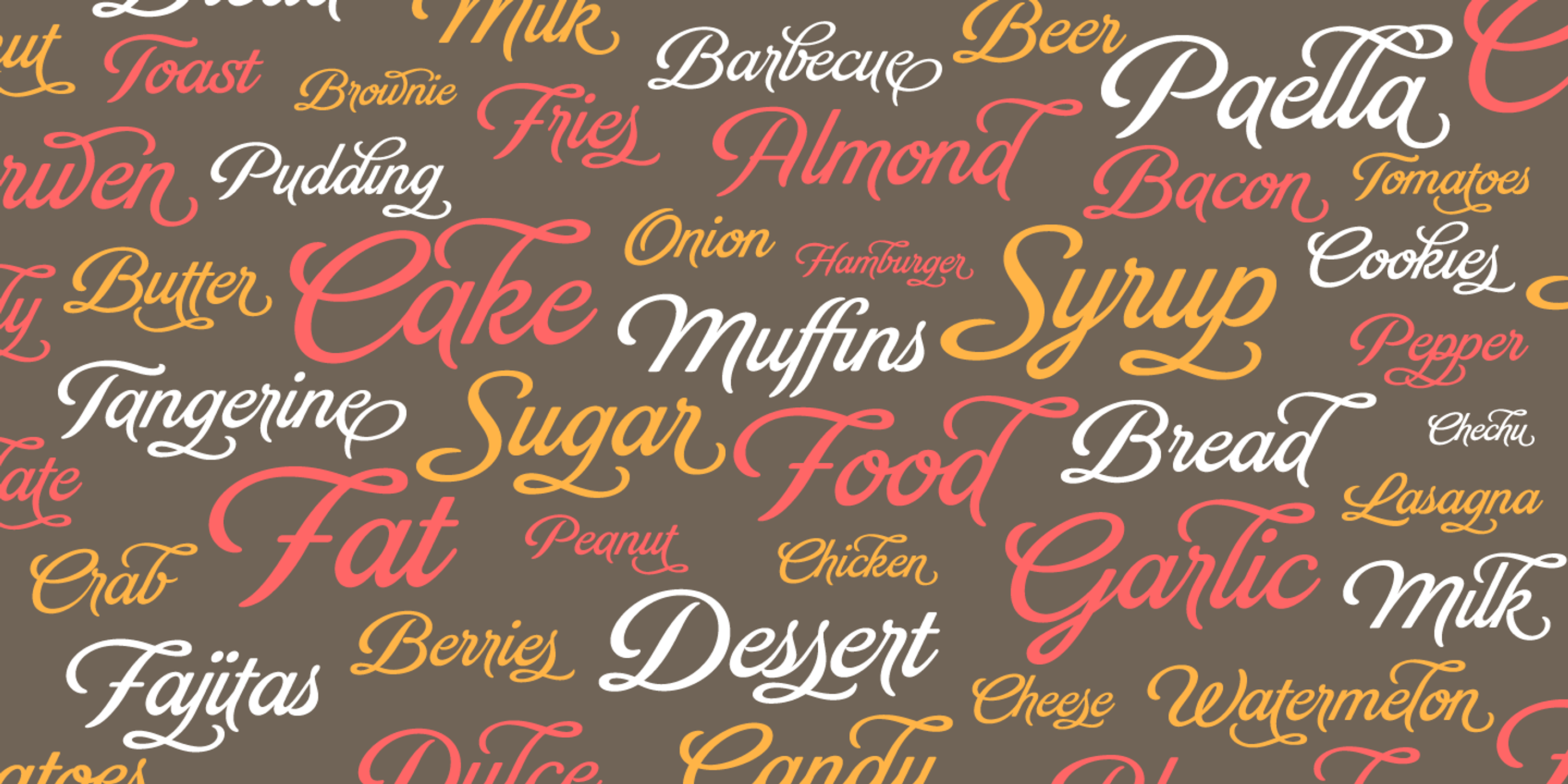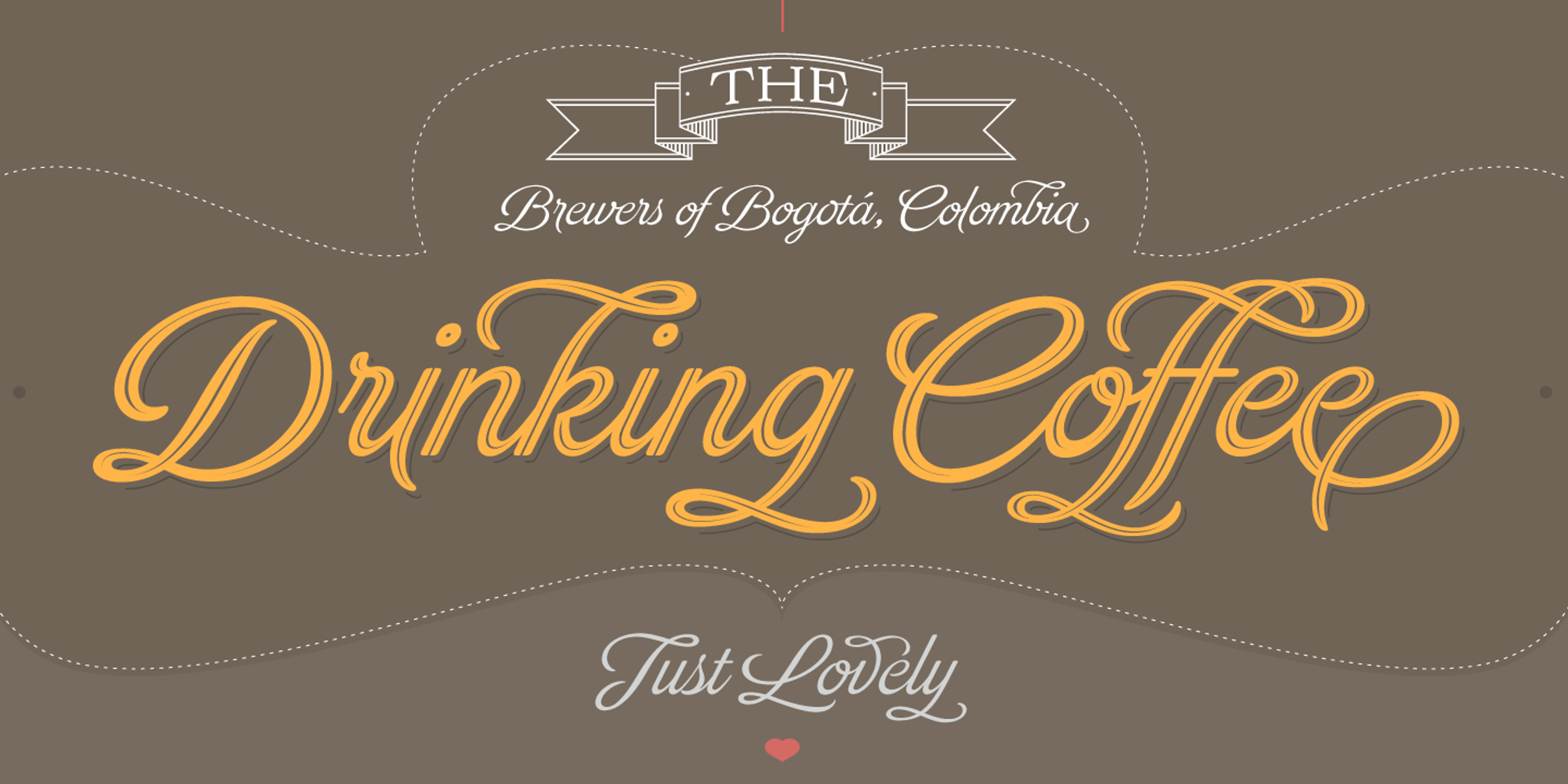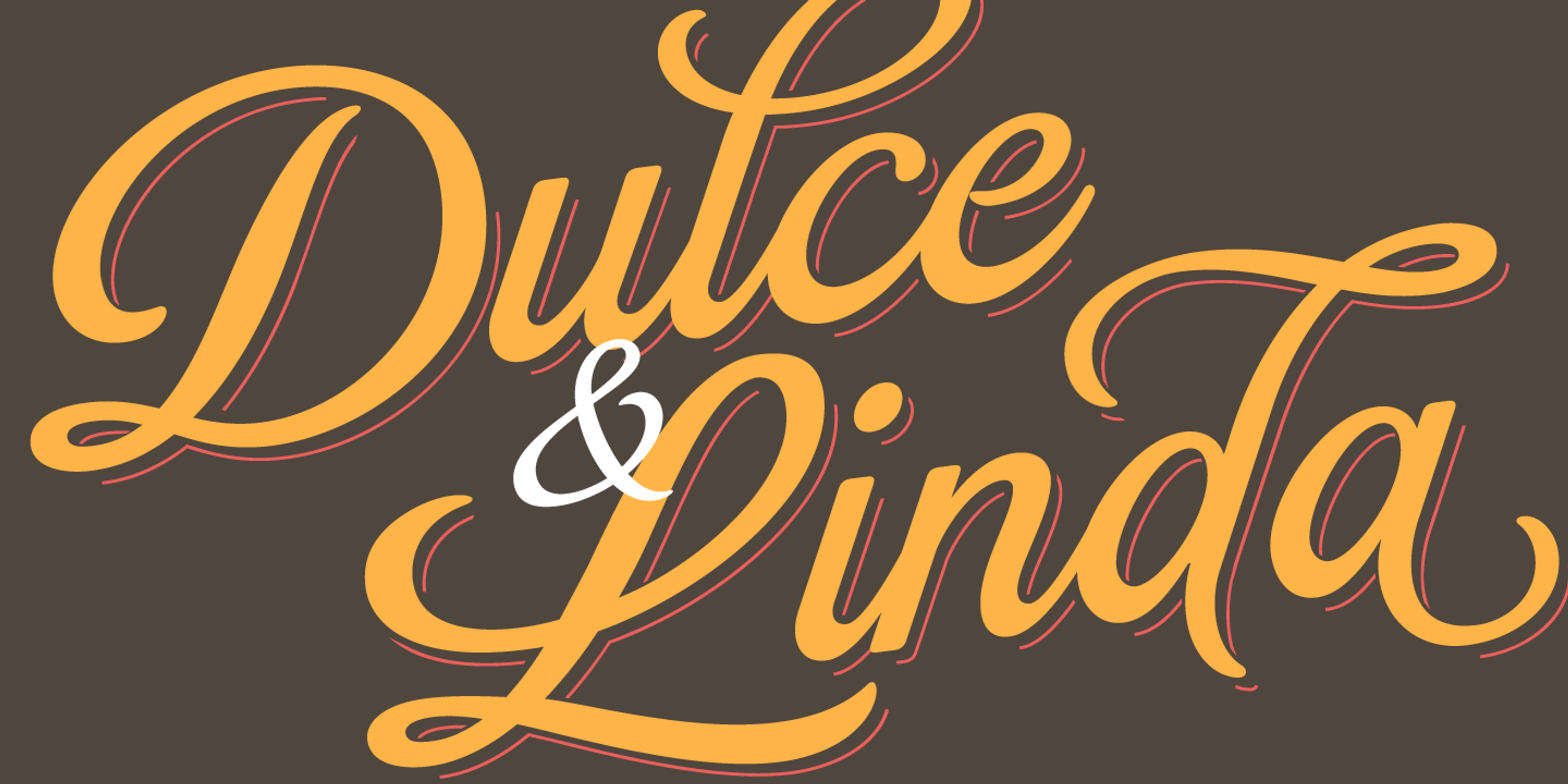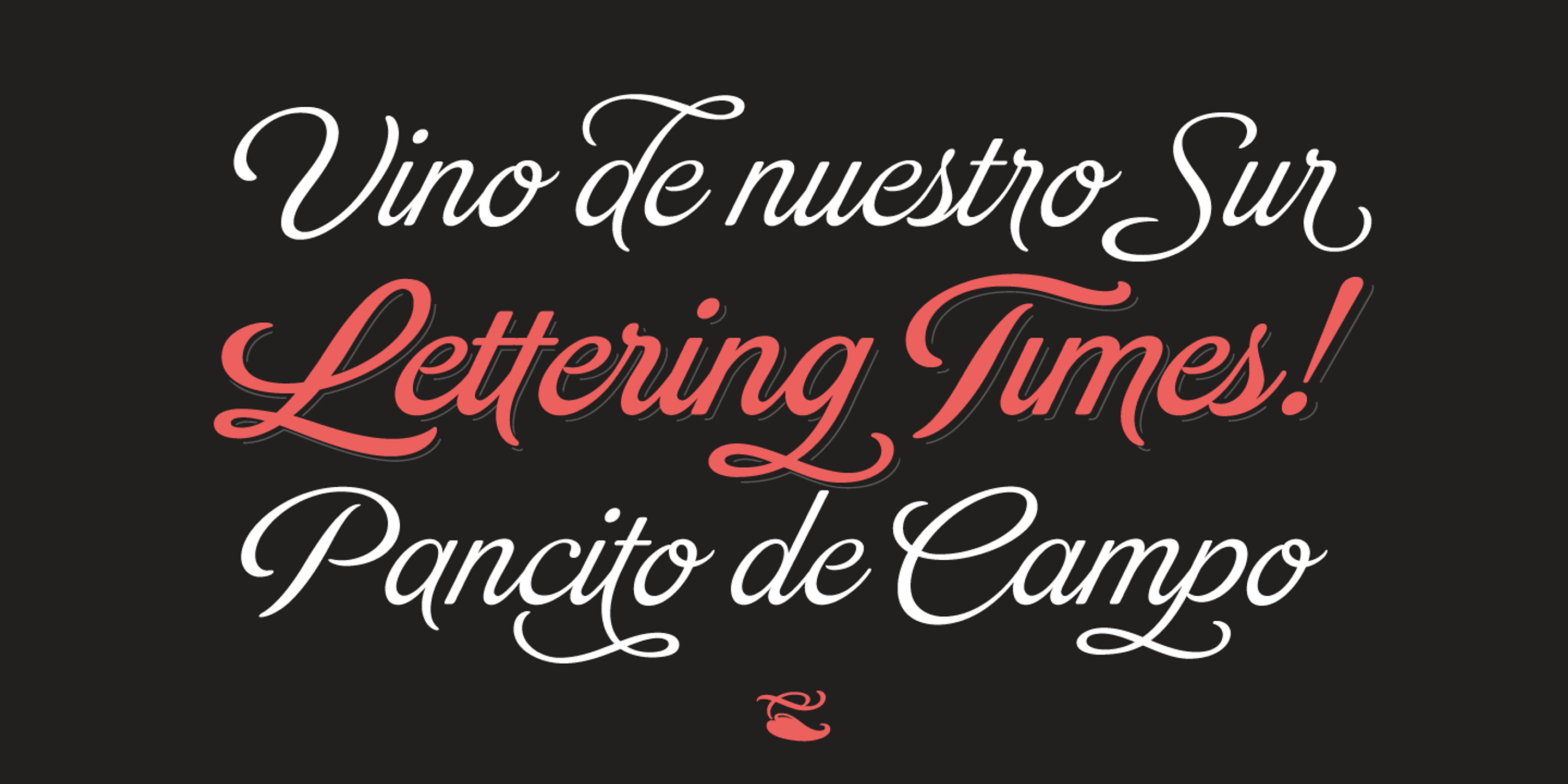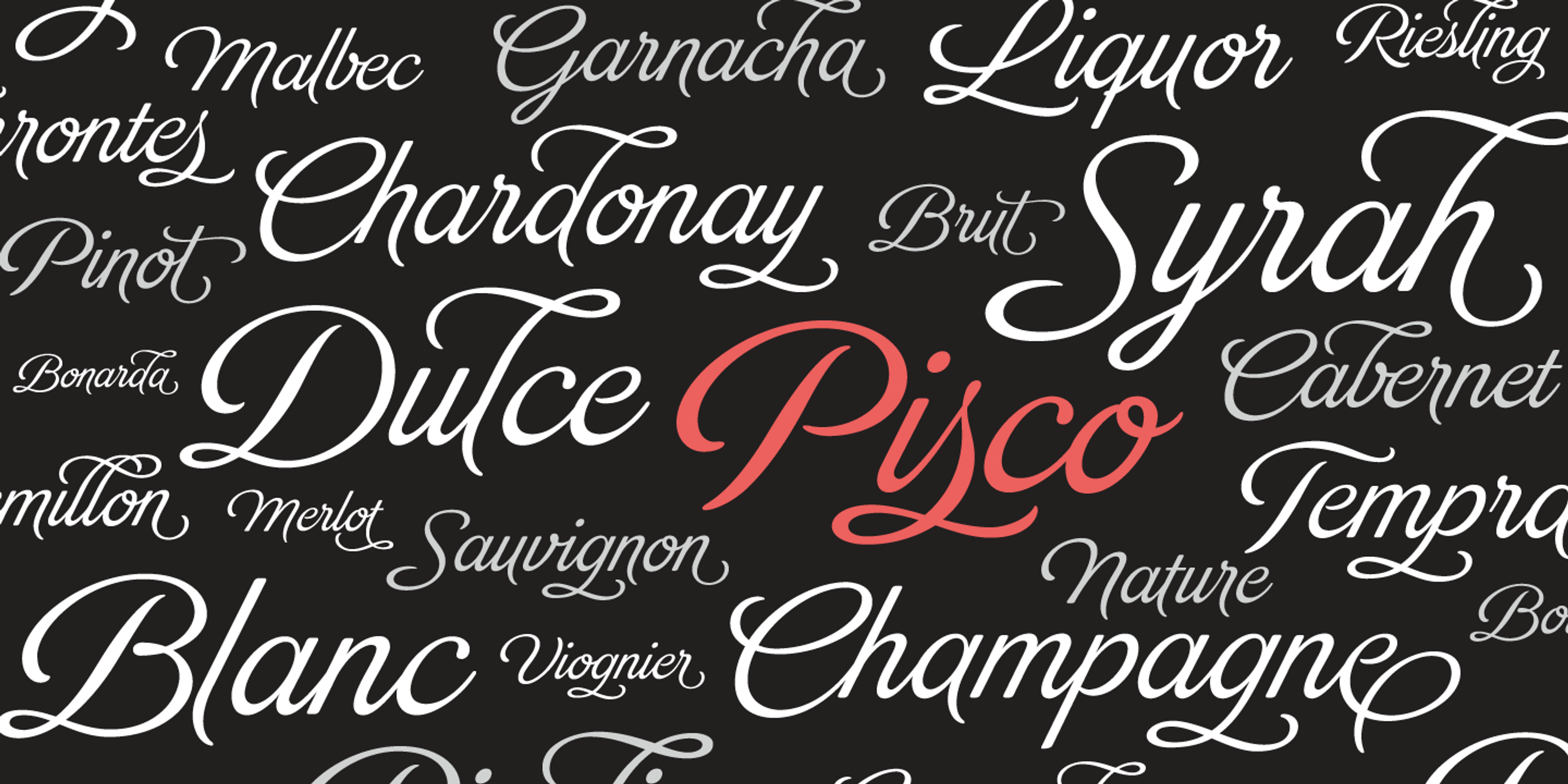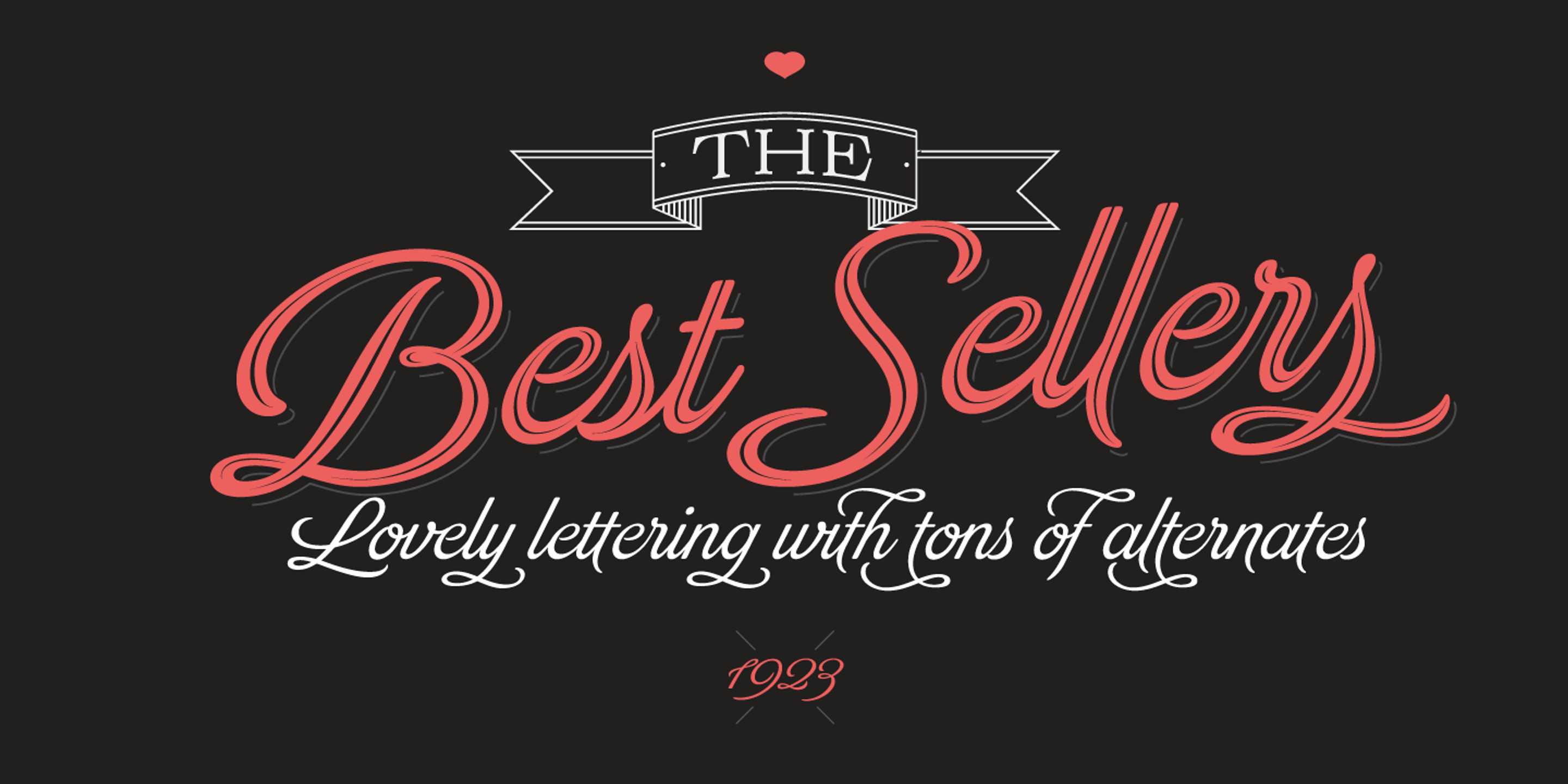
Brand font by Sproviero Type — a repeating pattern of food-related words like “Cake,” “Syrup,” and “Food” in a connected script, in white, orange, and red.
Brand font by Sproviero Type — the words “THE” on a banner, “Brewers of Bogotá, Colombia,” “Drinking Coffee,” and “Just Lovely,” all in a connected script, with a small heart icon below.
Brand font by Sproviero Type — the words “Dulce” and “Linda” in an orange connected script with a thin red outline, separated by a white ampersand
Brand font by Sproviero Type — the words “Vino de nuestro Sur,” “Lettering Times!,” and “Pancito de Campo” in a connected script, with a small chili pepper icon below.
Brand font by Sproviero Type — a dense word cloud of wine and liquor terms in a connected script, with “Dulce Pisco” highlighted in red among white and gray words
Brand font by Sproviero Type — the words “THE Best Sellers” in a ribbon graphic with a heart icon, and below it “Lovely lettering with tons of alternates” and “1923”
Brand Light
Brand Ornaments
Brand Inline
Brand Regular
Brand Shade
Brand Shade Solo
About the font
Brand Details
Brand results from the desire to design a soft cursive script that would become as ubiquitous as Jam jars, Warhol’s “Tomato Soup,” chalk lettering, and baseball. First and foremost, it is a typeface for brands. One might even think it is mainly for packaging. But clever designers can use it across magazine spreads, party invitations, logotypes, packaging, and advertisements. Look at the ample alternates, ligatures, and ornaments to expand your ideas further into the unexpected!
OpenType Features
• Common Ligatures
• Discretionary Ligatures
• Ornaments
• Stylistic Alternates
• Stylistic Sets
• Swashes
• Titling Capitals